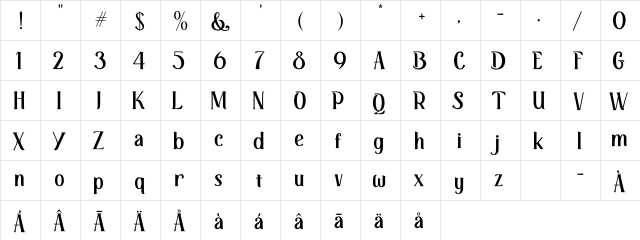
Retrophilia Regular
| Foundry | Allmostudio |
| Designer | Muhammad Nur Alamsyah |
Design Context for Retrophilia Typeface
Retrophilia has the warm character of retro typography — evoking diners, record sleeves, and the golden age of print advertising.
Font Pairing: Combine Retrophilia with a simple slab or neutral sans — period-accurate companions reinforce the vintage feel without competing for attention.
Pro Tip: Use Retrophilia for headlines and pull quotes rather than body copy — its personality is best appreciated in short, focused bursts.